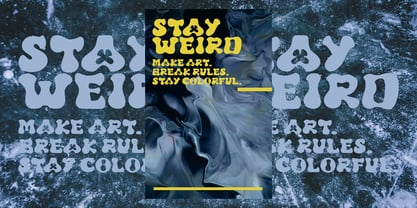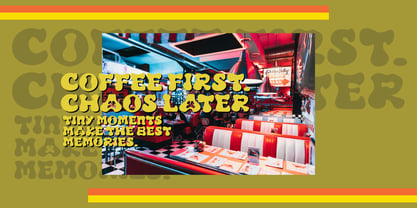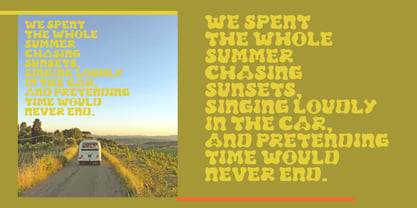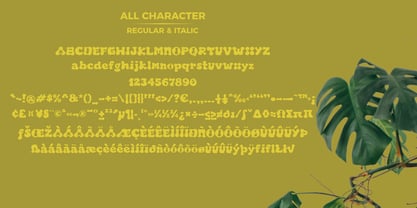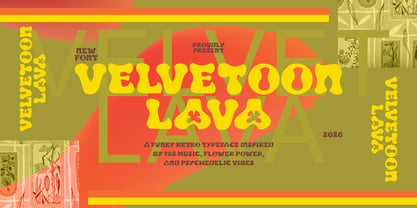
Velvetoon Lava
by Mei Suseno
The Velvetoon Lava Font Family was designed by Wahyu Eka Prasetya, Mei Suseno and published by Mei Suseno. Velvetoon Lava contains 2 styles and family package options. More about this family
Velvetoon Lava is a bold groovy display font inspired by the psychedelic spirit of the 70s. Featuring playful curves, soft bubbly shapes, and funky handcrafted details, this typeface brings a warm vintage vibe to any creative project.
Designed with a retro aesthetic and modern versatility, Velvet Lava is perfect for posters, music covers, branding, packaging, social media graphics, logos, stickers, fashion designs, and nostalgic-themed artwork.
Its unique letterforms create a fun and expressive personality that instantly grabs attention while maintaining readability and charm.
Features:
• Uppercase & lowercase
• Numbers & punctuation
• Multilingual support
• Retro psychedelic style
• Perfect for display and headline use
Perfect For:
• Retro posters
• Vintage branding
• Cafe & food packaging
• Album covers
• Festival designs
• Merchandise
• Social media content
• Groovy aesthetic projects
Bring back the colorful energy of the 70s with Velvet Lava — a font full of personality, rhythm, and retro soul.